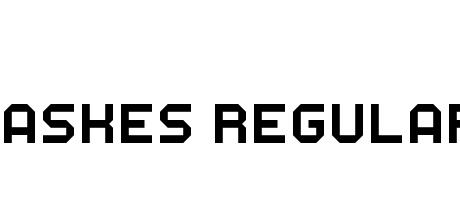
Taskes
Category  Display, Bold, Sans-serif, Modular, Geometric, Slab Serif, Sharp, Digital, Sci-Fi, Condensed, Monospaced, Wide
Taskes Regular: A bold, geometric sans-serif typeface. Its blocky, uppercase letters possess a rigid, almost monolithic quality. The straight lines and sharp corners create a strong, assertive presence, suggesting power and stability. Think of it as a futuristic, utilitarian font, ideal for headlines demanding attention.